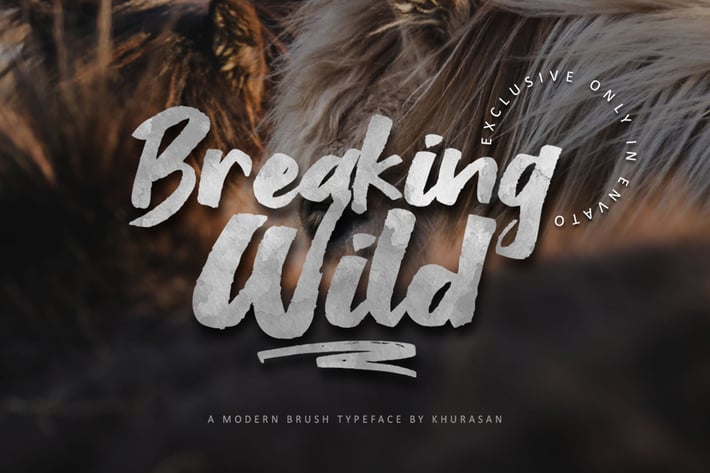
Breaking Wild Brush Font
khurasan
The Breaking Wild is a fresh handwritten font brush, elegant and vintage feel character set. The Breaking Wild font includes a full set capital and lowercase letters, as well as multi-lingual support, swashes, numerals, & punctuation. The Breaking Wild font exclusive only in envato web.